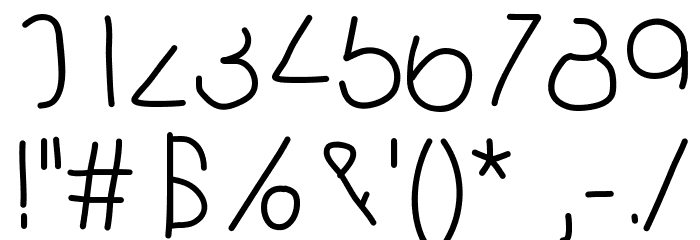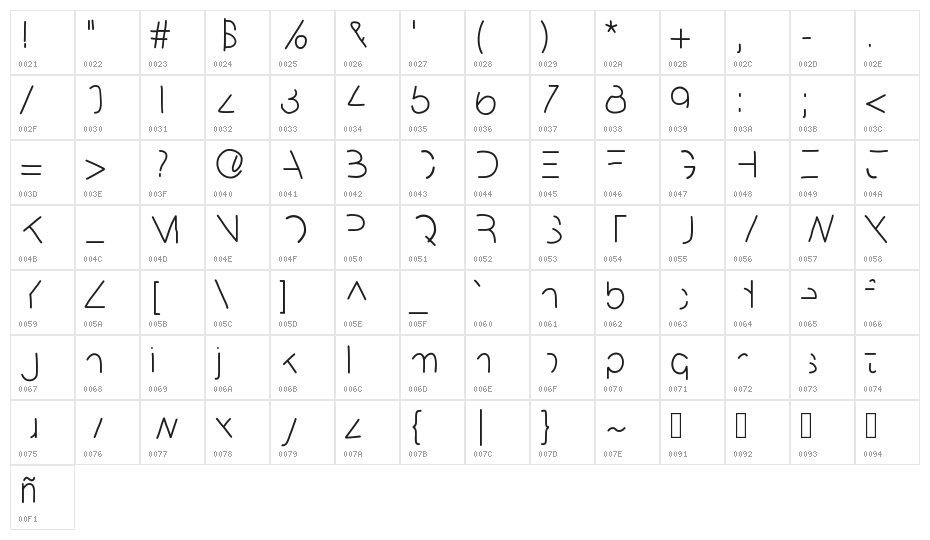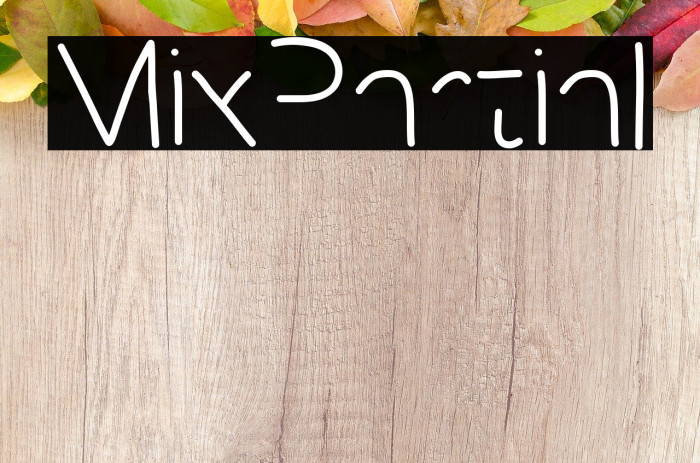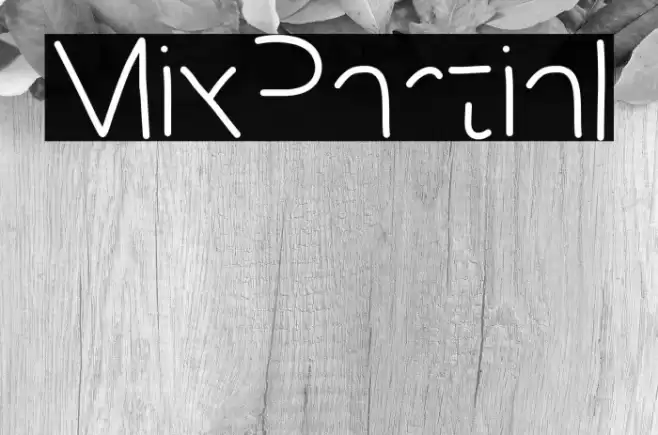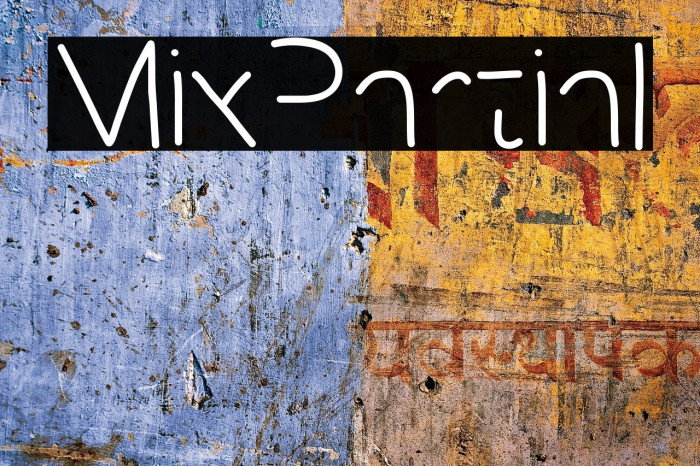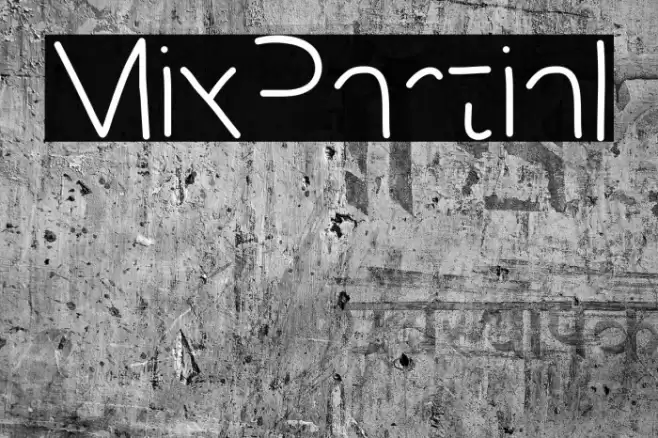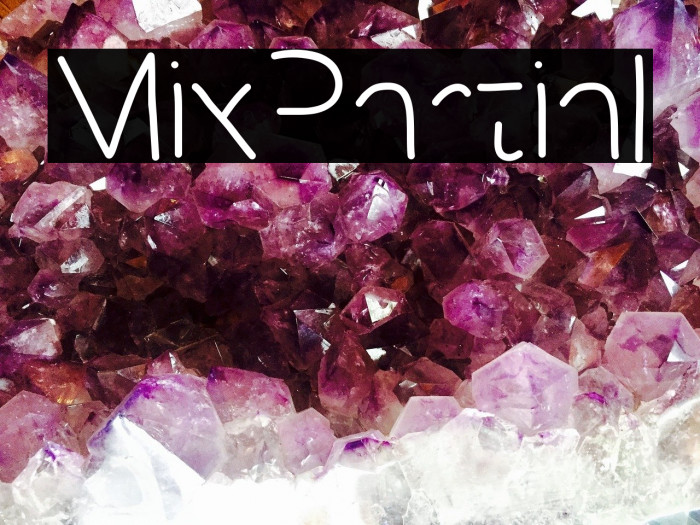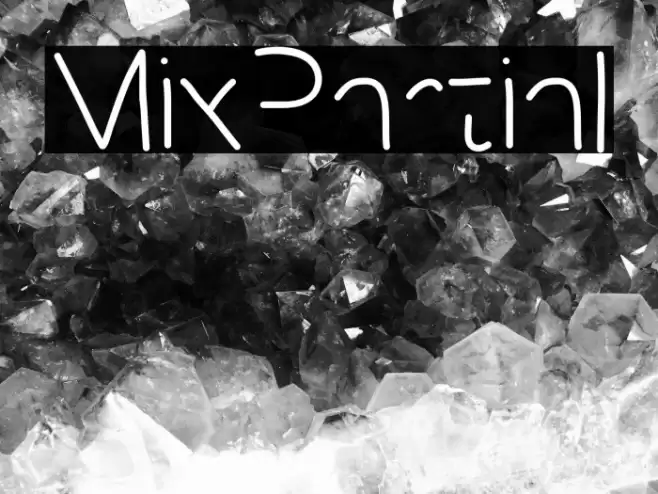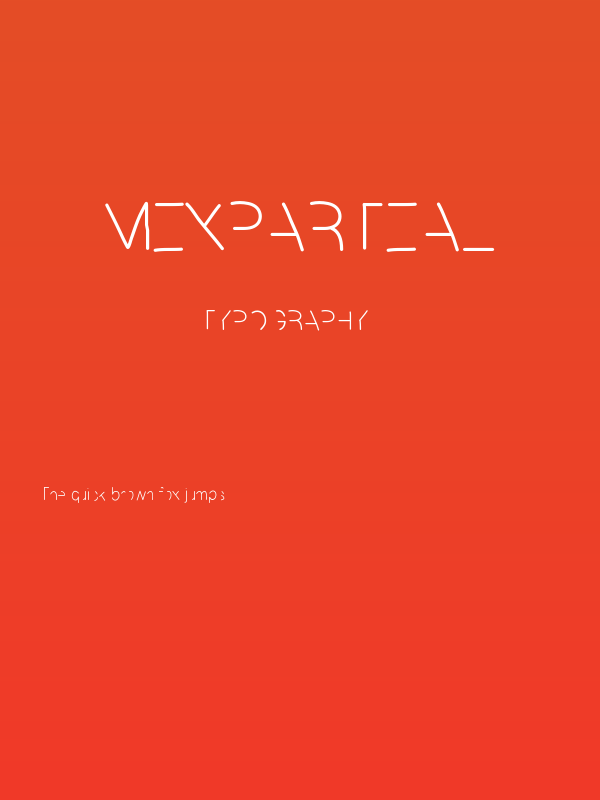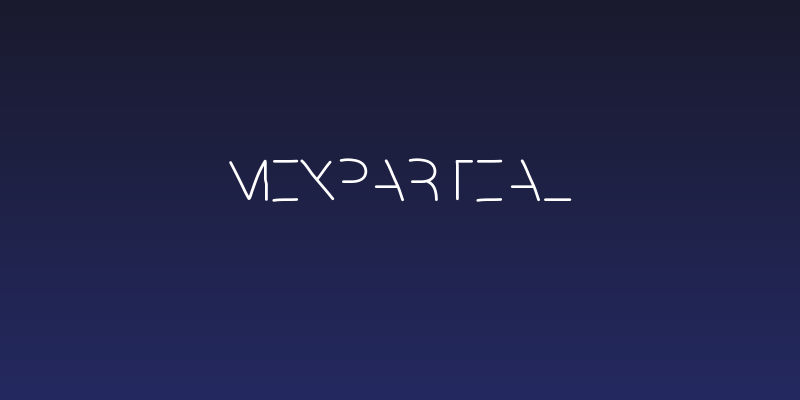
MixPartial Font
MixPartial Description
This font features a unique, modern design with a playful and abstract twist. The characters are composed of disconnected lines and curves, creating an intriguing and artistic appearance. The uppercase letters are bold and distinct, while the lowercase letters maintain a consistent style, adding a sense of cohesion. Numbers and special characters follow the same design principles, ensuring uniformity across all glyphs. The overall look is minimalistic yet expressive, making it suitable for creative projects that require a touch of innovation and flair.
| Use Case | Logos, Posters, Artistic projects |
| Proposed Projects | Ideal for creative branding, modern art projects, and unique poster designs. |